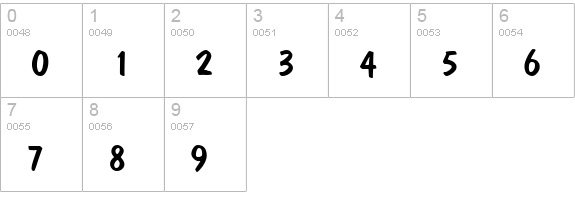
QTCasual Regular Font Details
QTCasual Regular is the standard, neutral variant in the QTCasual typeface family \xE2\x80\x94 well suited to general body text, paragraphs, and standard typographic work.
QTCasual Regular font is a delightfully playful and versatile typeface that adds a touch of whimsy to any project. Its rounded edges and smooth curves give it a friendly and approachable feel, perfect for casual designs and lighthearted branding. This font is a true gem for those seeking a free and high-quality option. Whether you're creating greeting cards, social media graphics, or designing a website, QTCasual Regular font will effortlessly infuse your creations with a fun and relaxed vibe. One of the best things about QTCasual Regular font is that it is freely available to download at FontsMarket.com. This means you can easily access this fantastic font at no cost, making it a fantastic resource for both personal and commercial projects. With its extensive character set and numerous alternates, QTCasual Regular font offers endless possibilities for customization and creative expression. Its versatility allows it to adapt to various design styles, from modern and minimalistic to vintage and retro. Whether you're a seasoned designer or just starting out, QTCasual Regular font is sure to become a favorite in your font library. Its charm and accessibility make it a must-have for anyone looking to add a playful touch to their designs. Don't miss out on the opportunity to enhance your creations with QTCasual Regular font. Visit FontsMarket.com today to download this fantastic font for free and unlock endless possibilities for your design projects.